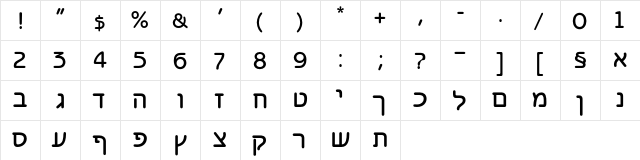
Benzion Regular
Design Context for Benzion Typeface
Benzion is a composed and adaptable typeface that performs quietly and consistently across a wide range of design contexts.